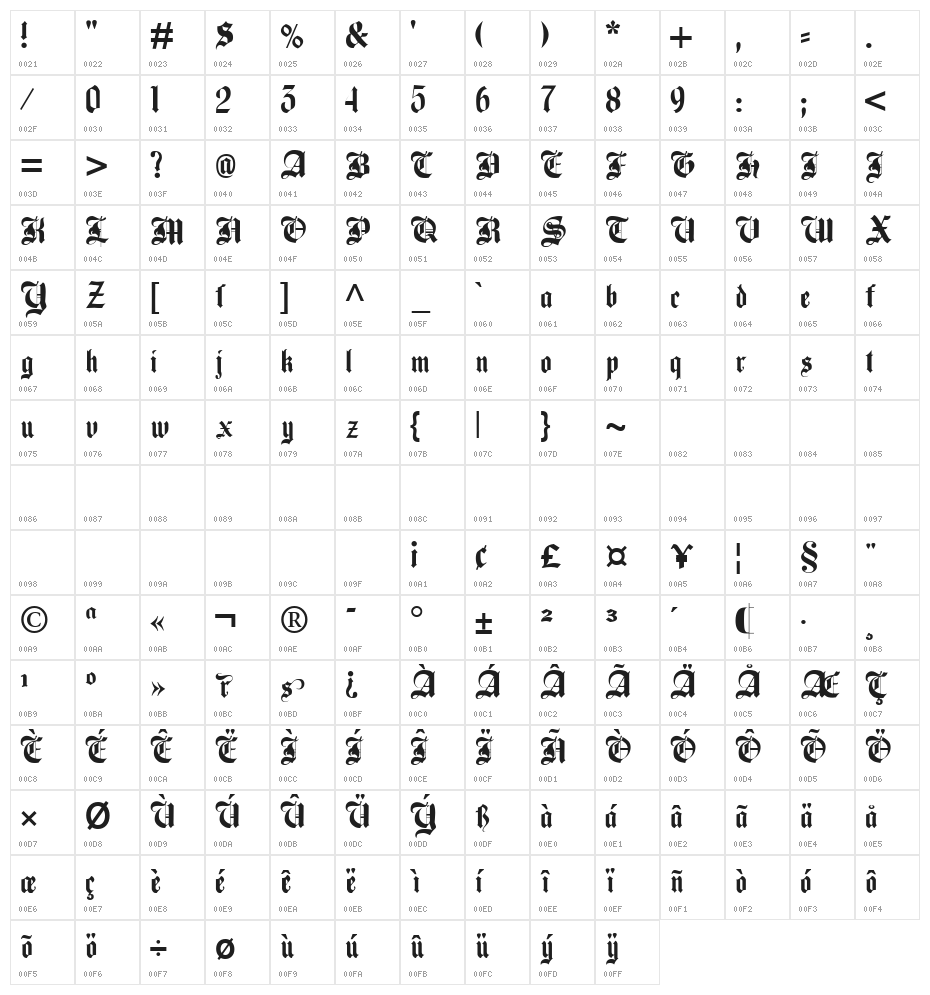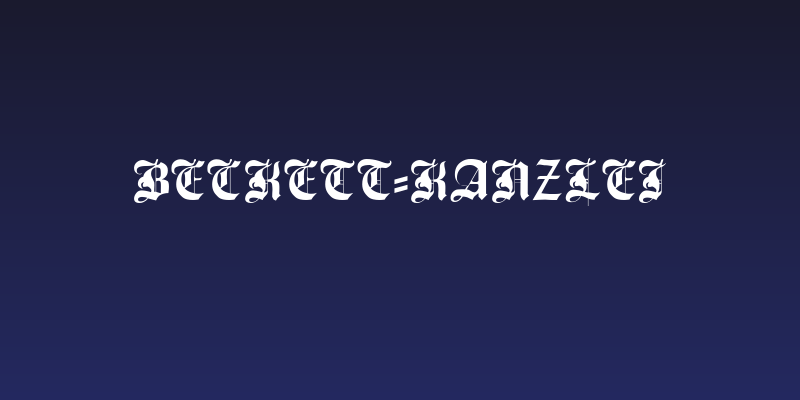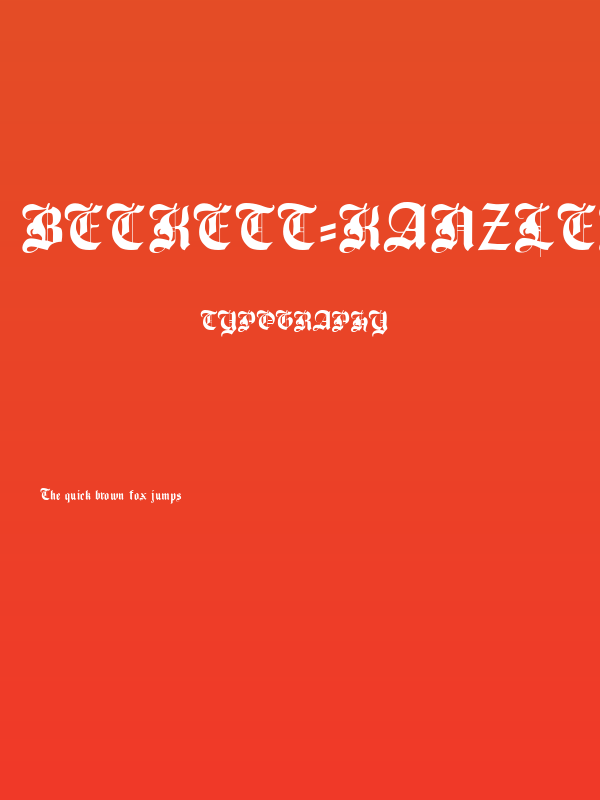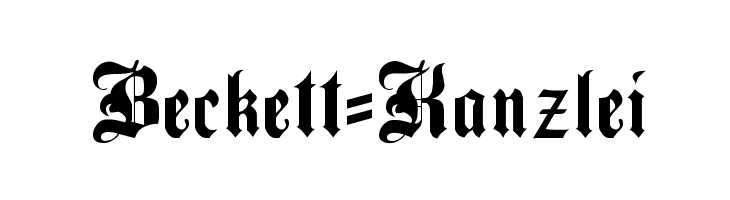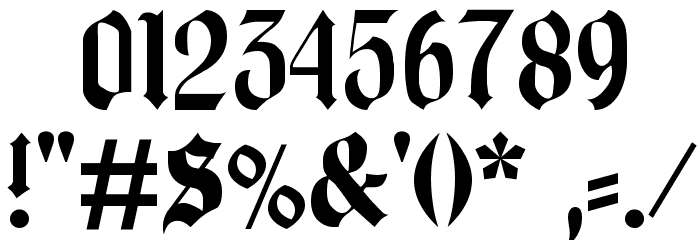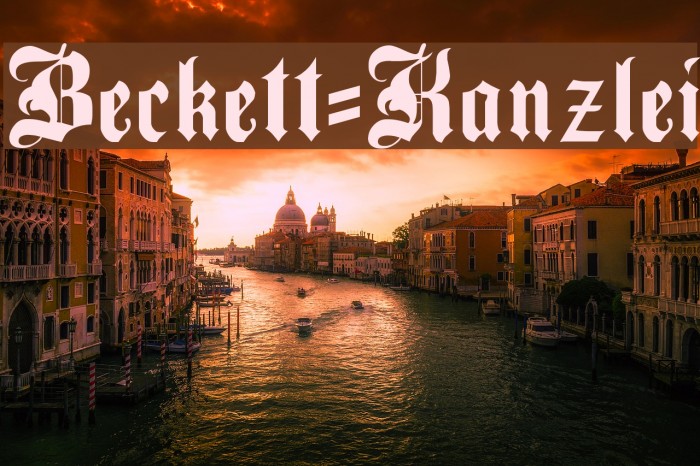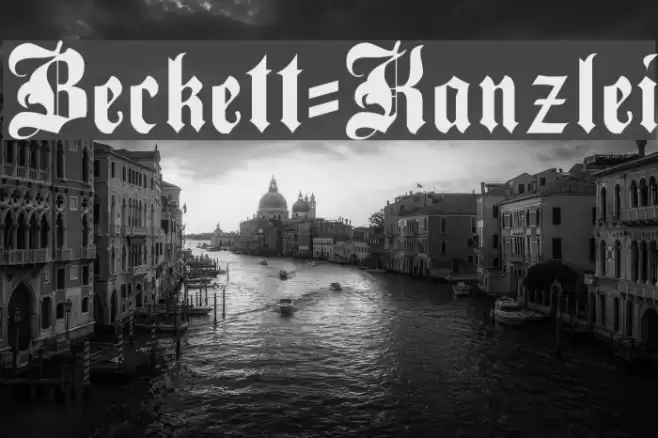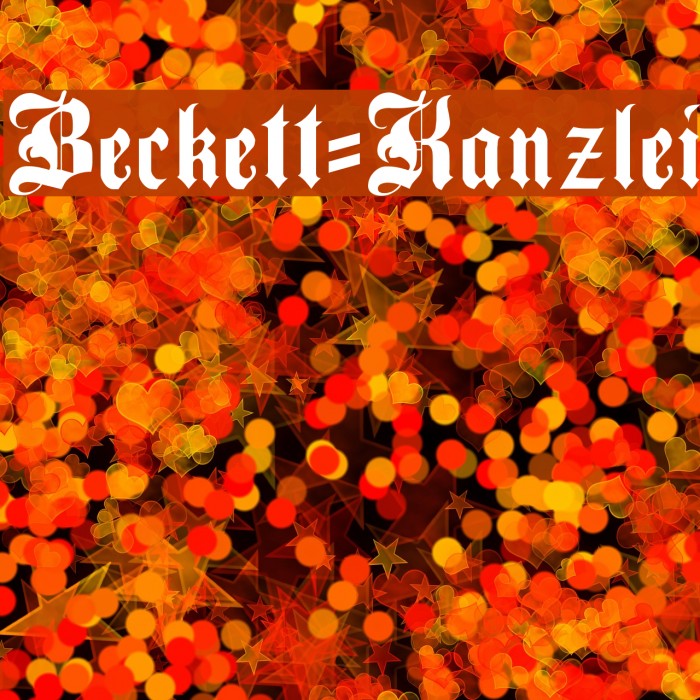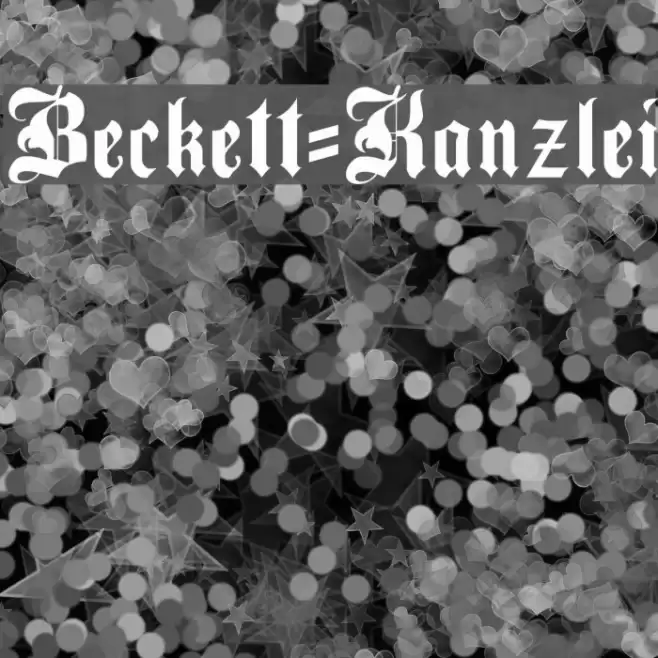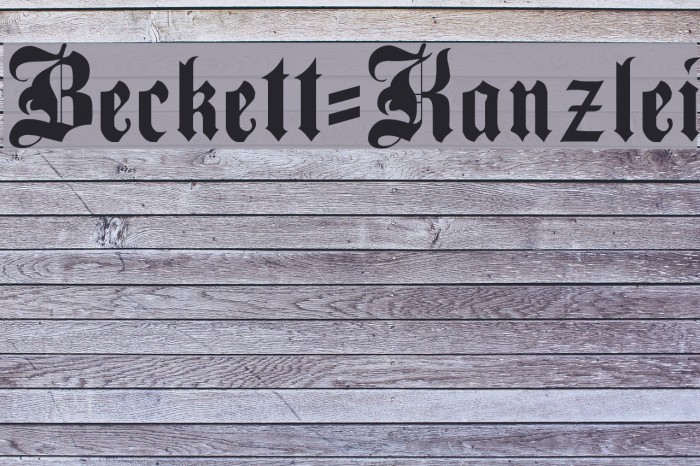
Beckett-Kanzlei Font
Beckett-Kanzlei Description
This font exudes a classic and historical aura, reminiscent of traditional blackletter styles. It features intricate, ornate details with sharp, angular strokes and a strong vertical emphasis. The uppercase letters are particularly elaborate, with decorative flourishes that enhance their Gothic appearance. The lowercase letters maintain a consistent style, offering a harmonious blend of readability and decorative flair. The numerals are bold and distinct, matching the overall aesthetic. Special characters are equally ornate, fitting seamlessly into the font's cohesive design. This typeface is ideal for projects that require a touch of elegance and historical depth.
| Overall Style | Classic |
| Use Case | Logos, Headlines, Decorative text |
| Proposed Projects | Suitable for historical documents, wedding invitations, book covers, or branding that requires a traditional and elegant touch. |